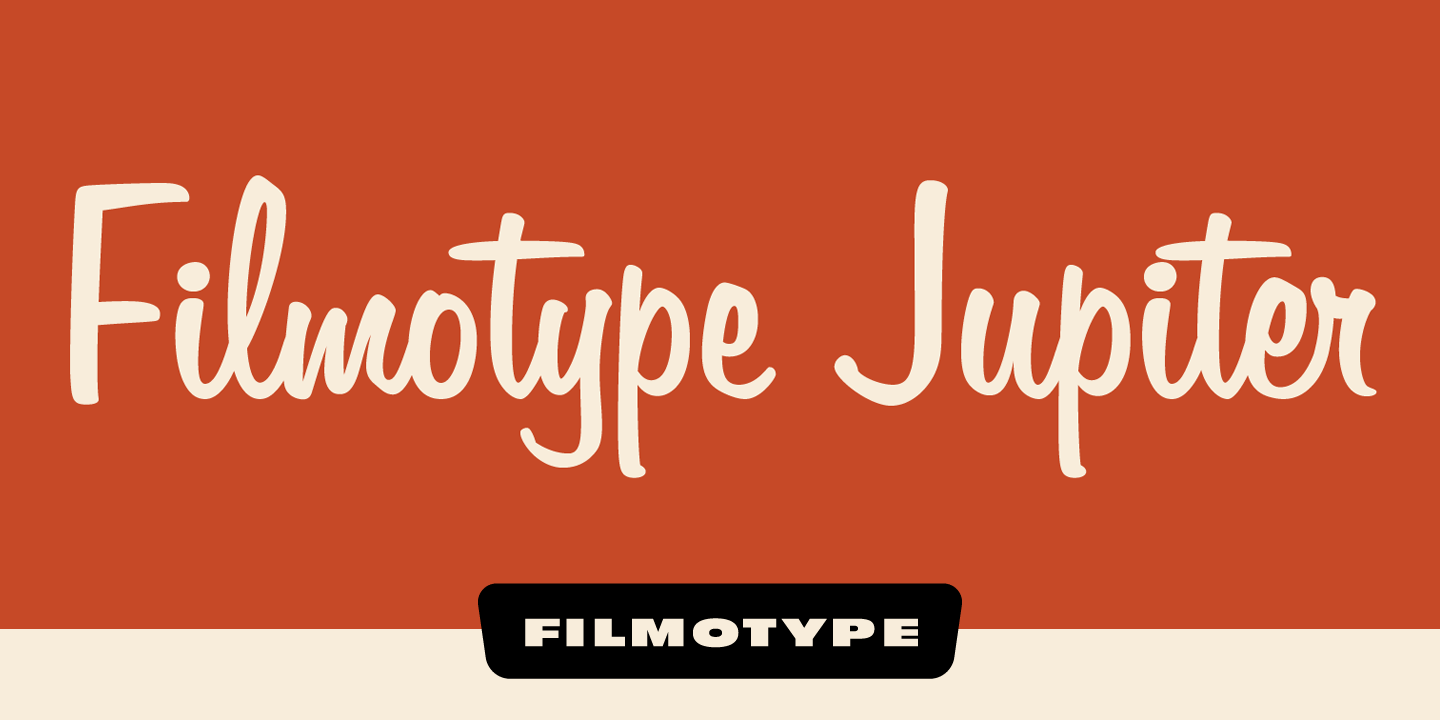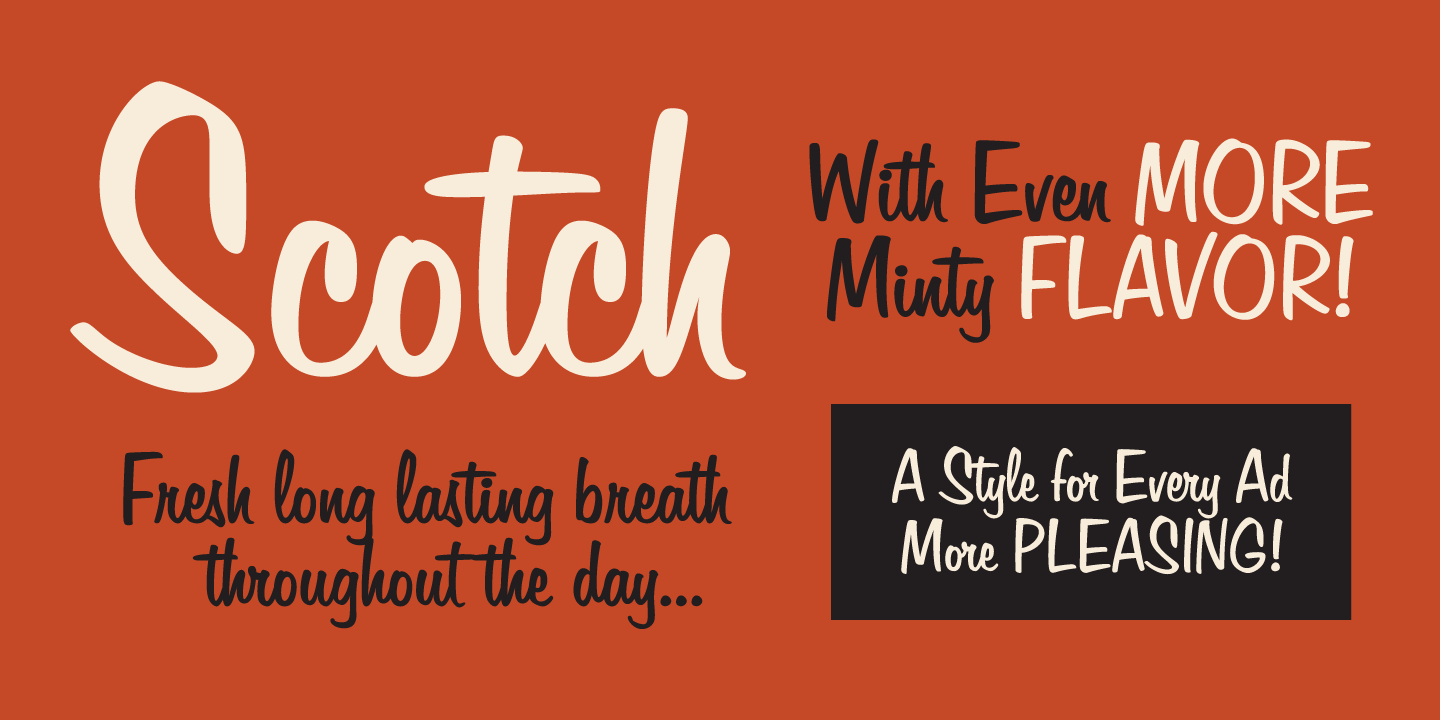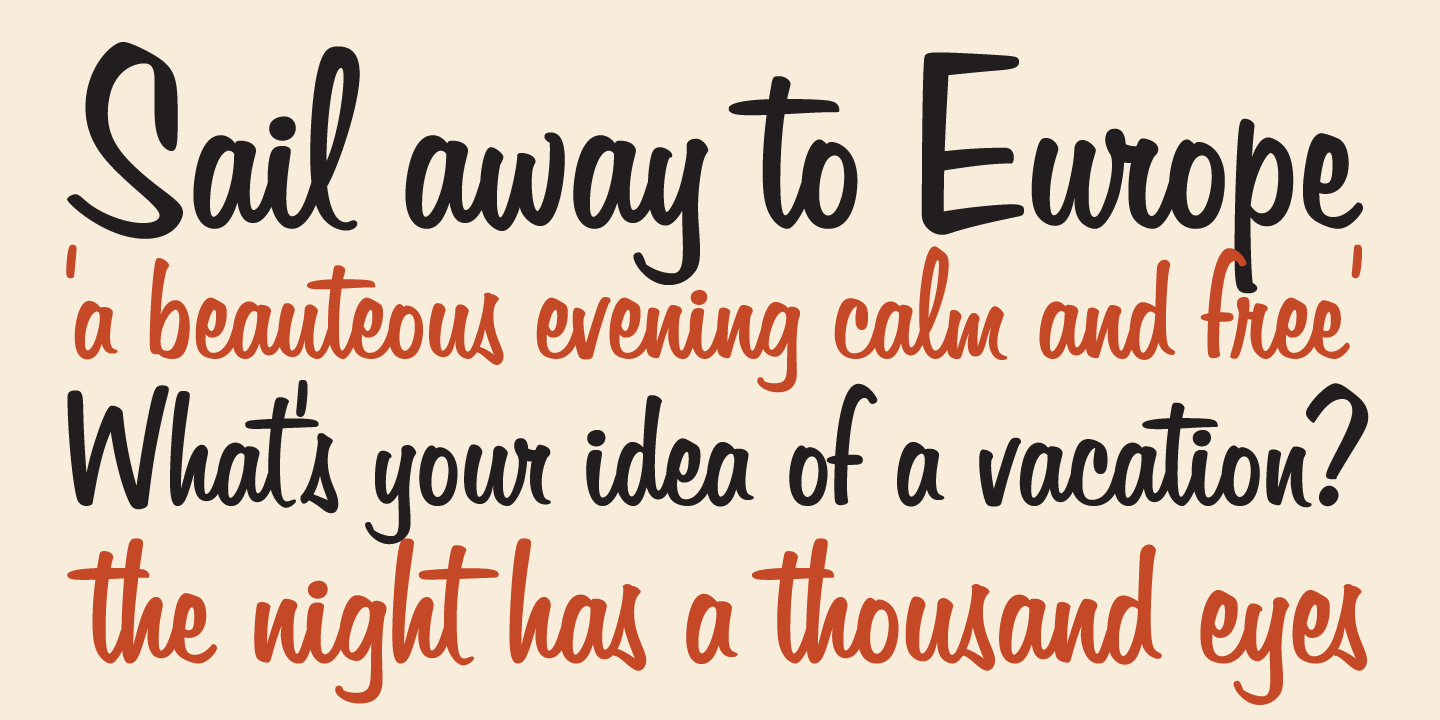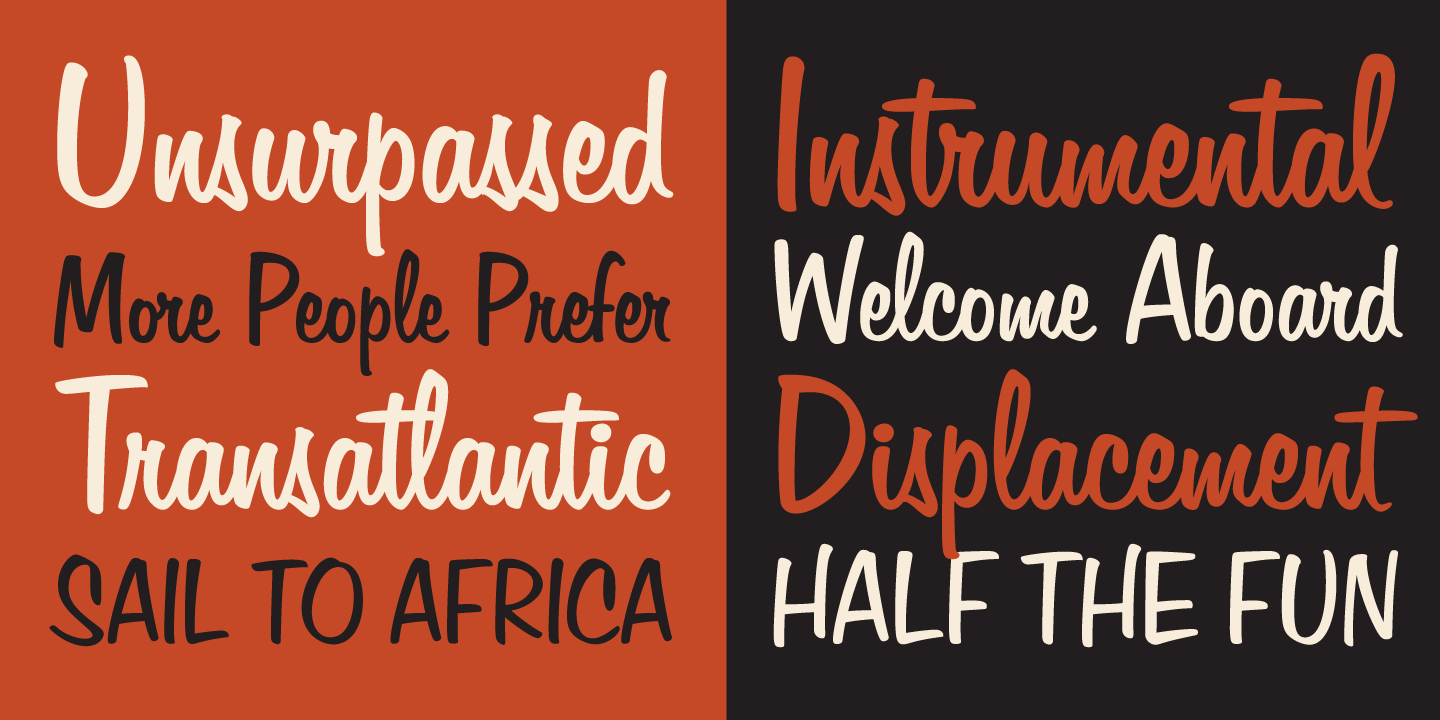
Filmotype Jupiter
Font Family by Filmotype
Filmotype Jupiter is among the most expressive bold upright scripts in the Filmotype library with a smooth flowing handwritten style and charming personality, it was originally released by Filmotype in the late 1950s to expand its Scripts category.
Filmotype Jupiter was developed from the original font filmstrips and includes a full international character complement, automatic fractionals, ordinals, and a very large set of alternate contextual characters and ligatures to allow flawless typesetting in dynamic OpenType format.